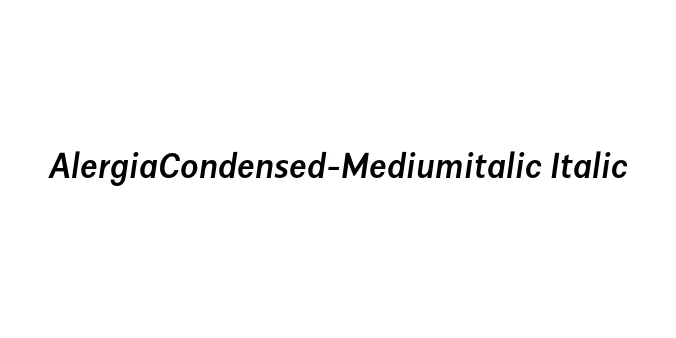
AlergiaCondensed-Mediumitalic Italic
Designed by Mateusz Machalski
Alergia Condensed is a sophisticated hybrid typeface designed by the renowned Polish typographer Mateusz Machalski. This font family represents a unique blend of geometric construction and humanistic elements, resulting in a contemporary aesthetic that is both functional and expressive. The Condensed version is specifically tailored for high-density environments where horizontal space is limited, making it an essential tool for modern graphic design.
The Medium Italic weight offers a graceful, slanted orientation that provides dynamic emphasis within text blocks. It retains exceptional legibility even at smaller point sizes, thanks to its carefully balanced proportions and clean strokes. This font is widely favored in the design community for its ability to convey a sense of professional elegance and technical precision in editorial, corporate, and digital applications.
AlergiaCondensed-Mediumitalic Italic Best Uses
Ideal for magazine layouts, dense columns, and sophisticated long-form text.
Perfect for creating sleek, modern logos and corporate identity systems.
Used for high-impact, space-saving titles that require a professional slant.
Great for UI elements, sidebars, and navigational menus where space is at a premium.